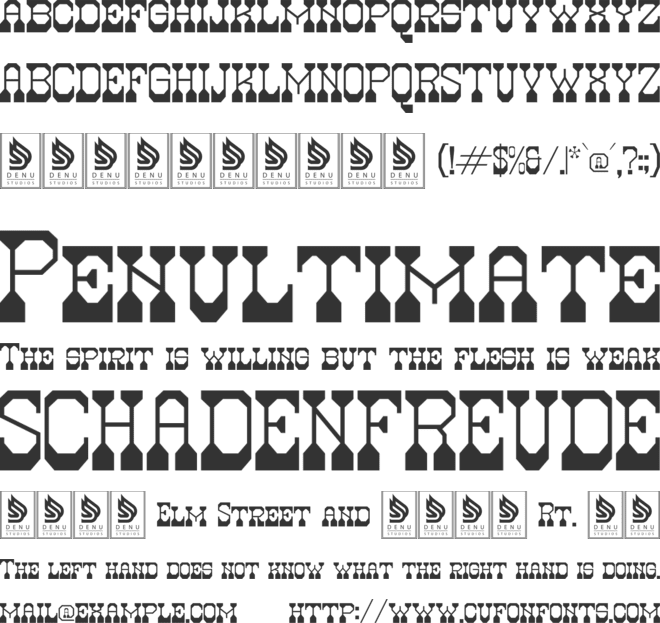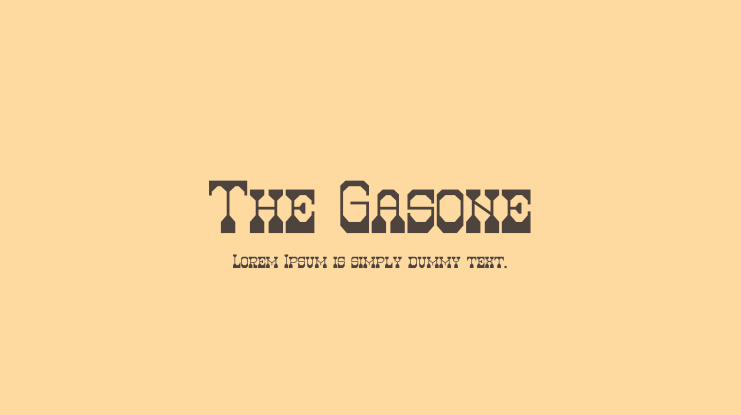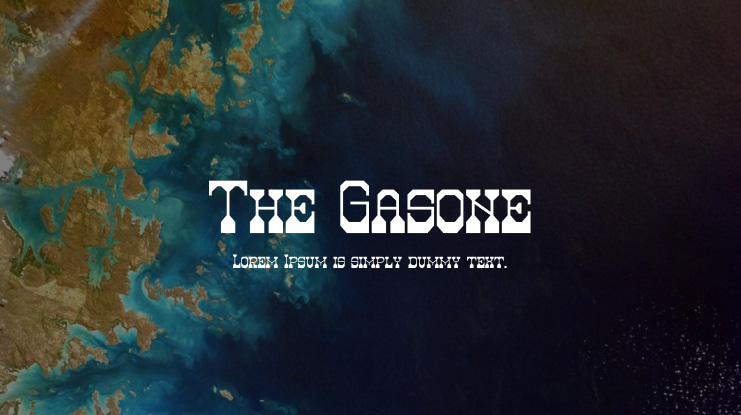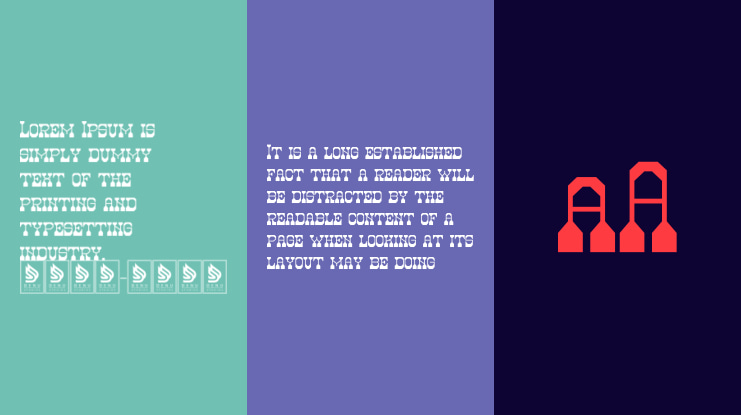
The Gasone | Western Slab Serif is perfect for a variety of projects, including logos, branding, homeware designs, product packaging, mugs, quotes, posters, shopping bags, t-shirts, book covers, name cards, invitation cards, greeting cards, labels, photography, watermarking, special events, and any other projects that call for a Western Slab Serif style.